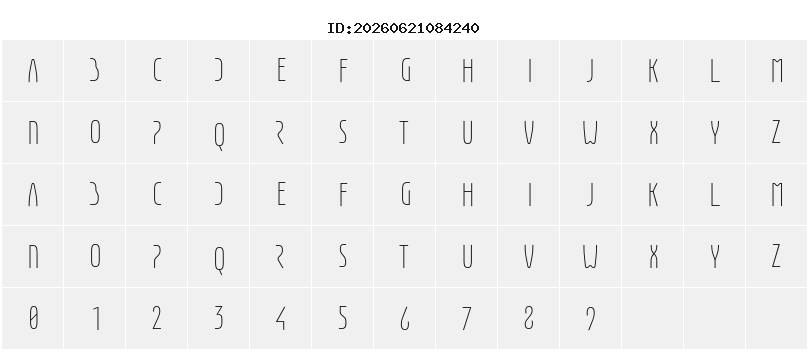
Eunomia Light Preview
• Font Name: Eunomia Light
• Full Font Name: Eunomia-Light
• PostScript Name: Eunomia-Light
• Designer: Sora Sagano
About Eunomia Light.otf
Eunomia Light.otf is a modern, elegant sans-serif font designed for ultimate readability and visual harmony. Perfect for branding, headlines, web design, and print materials.